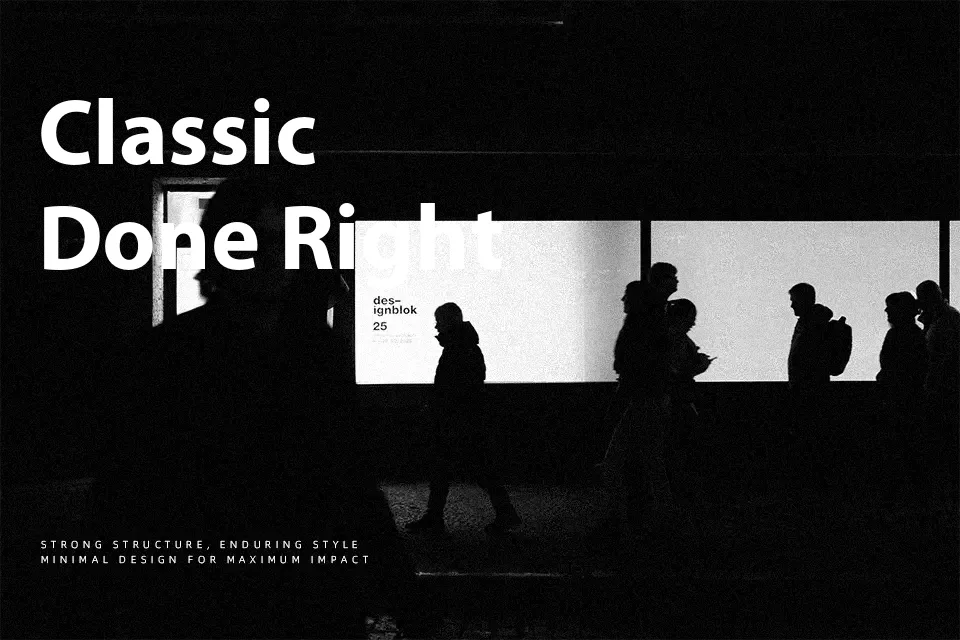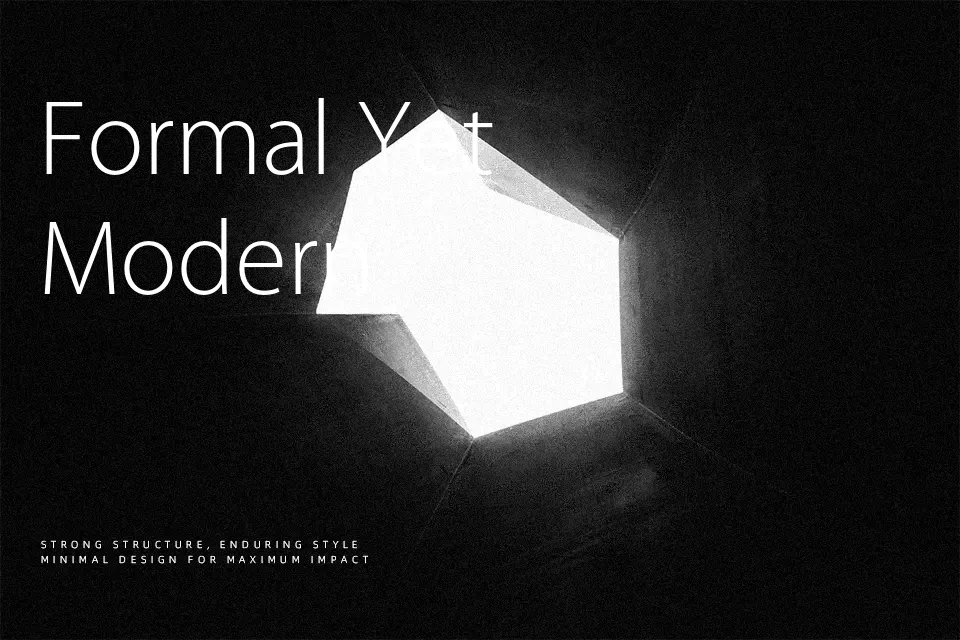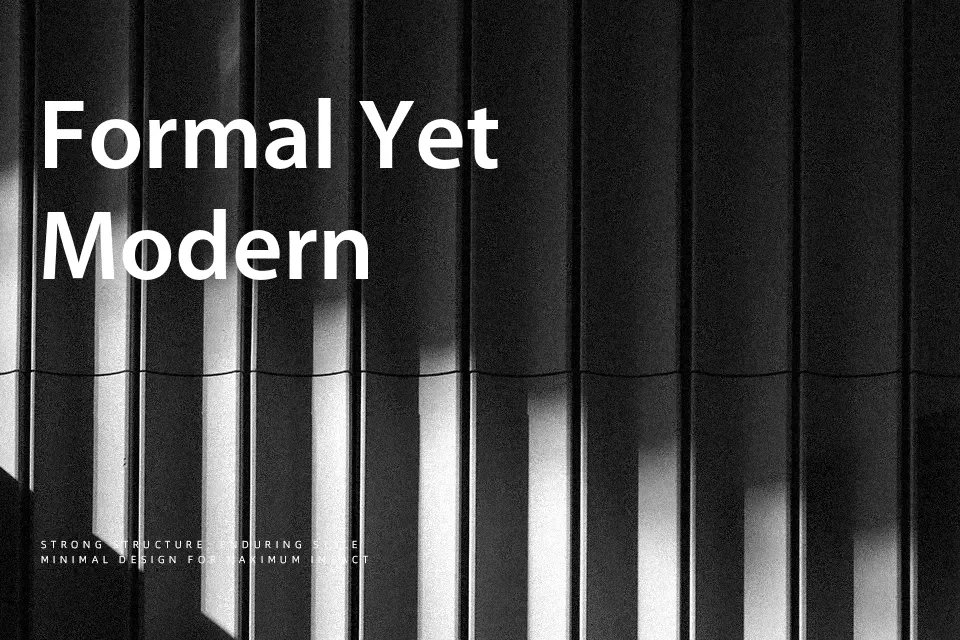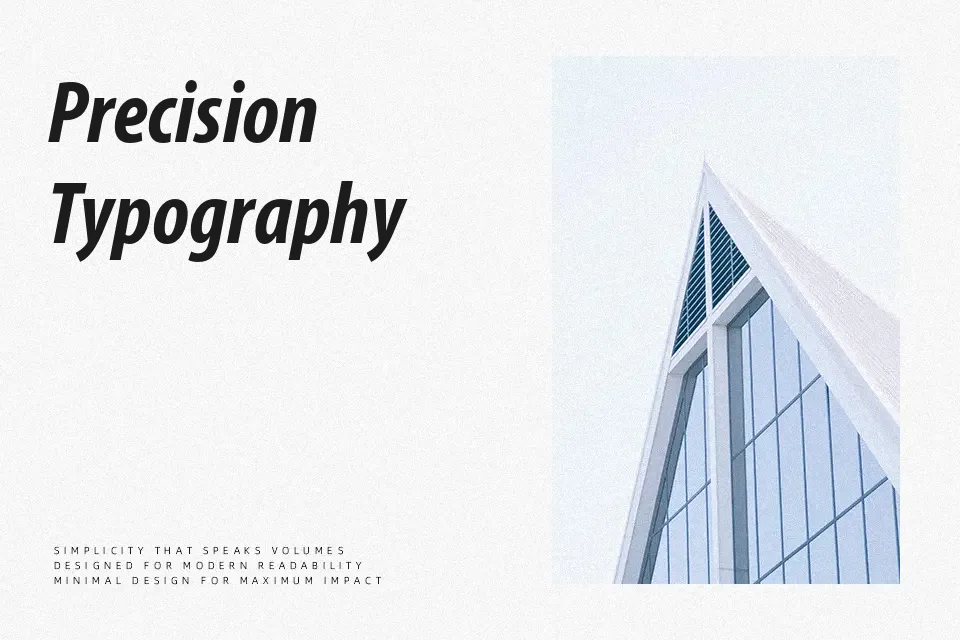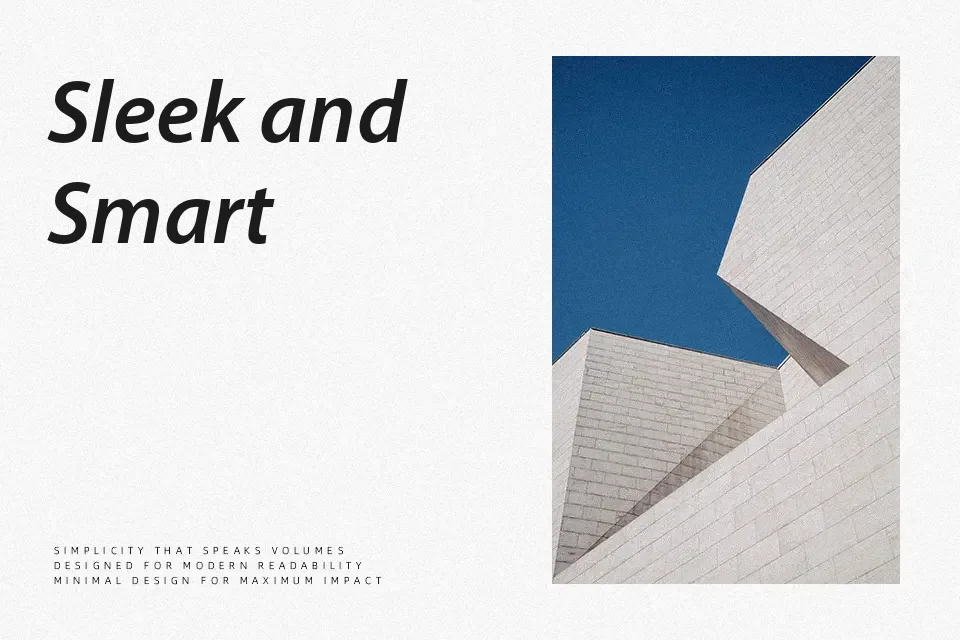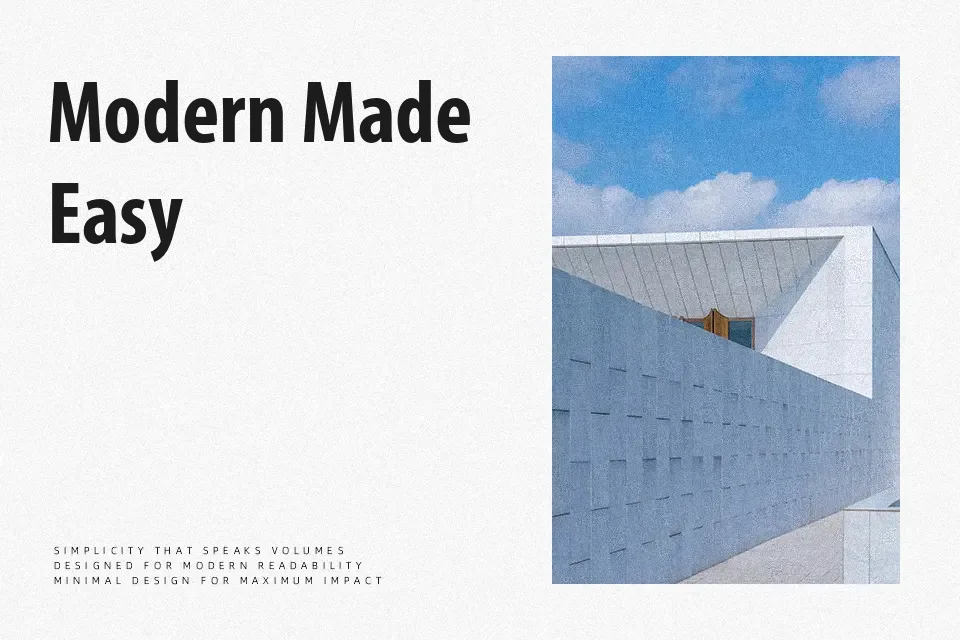
Myriad Pro Font
Engineered for ultimate versatility, the Myriad Pro Font Family is one of the most recognizable humanist sans-serifs of the modern era. Designed in 1992 by Robert Slimbach and Carol Twombly for Adobe, it was created to be an all-purpose typeface with perfectly straight stems, flat endings, and open, warm letter proportions. It is easily distinguished by the unique slanted descender on its lowercase ‘y’ and a slightly tilted ‘e’, giving it a subtle human touch that breaks away from cold, mechanical geometry.
Because of its exceptionally clean shapes and non-offensive neutrality, it is an incredibly dependable choice for large-scale corporate branding, dense software manuals, and modern user interfaces—famously serving as Apple’s corporate font for over a decade. However, this extreme ubiquity means it is a poor choice for highly unique or artistic boutique identities, where it will likely feel too common and uninspired. It is the definition of a practical workhorse font.
– large-scale corporate branding
– dense software manuals
– modern user interfaces
– professional annual reports
– artistic boutique identities
– vintage or retro packaging
– highly stylized event stationary
Perfect for body text, branding, and editorial, with a classic and sans serif style.